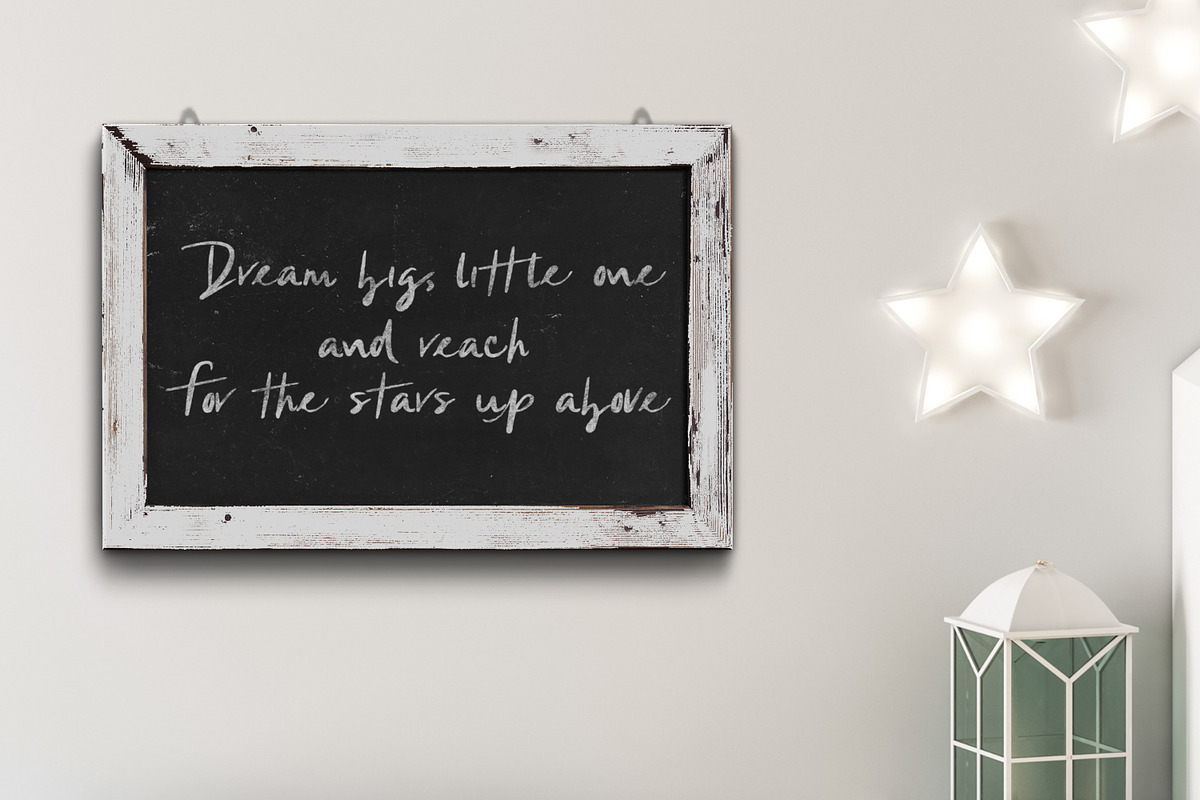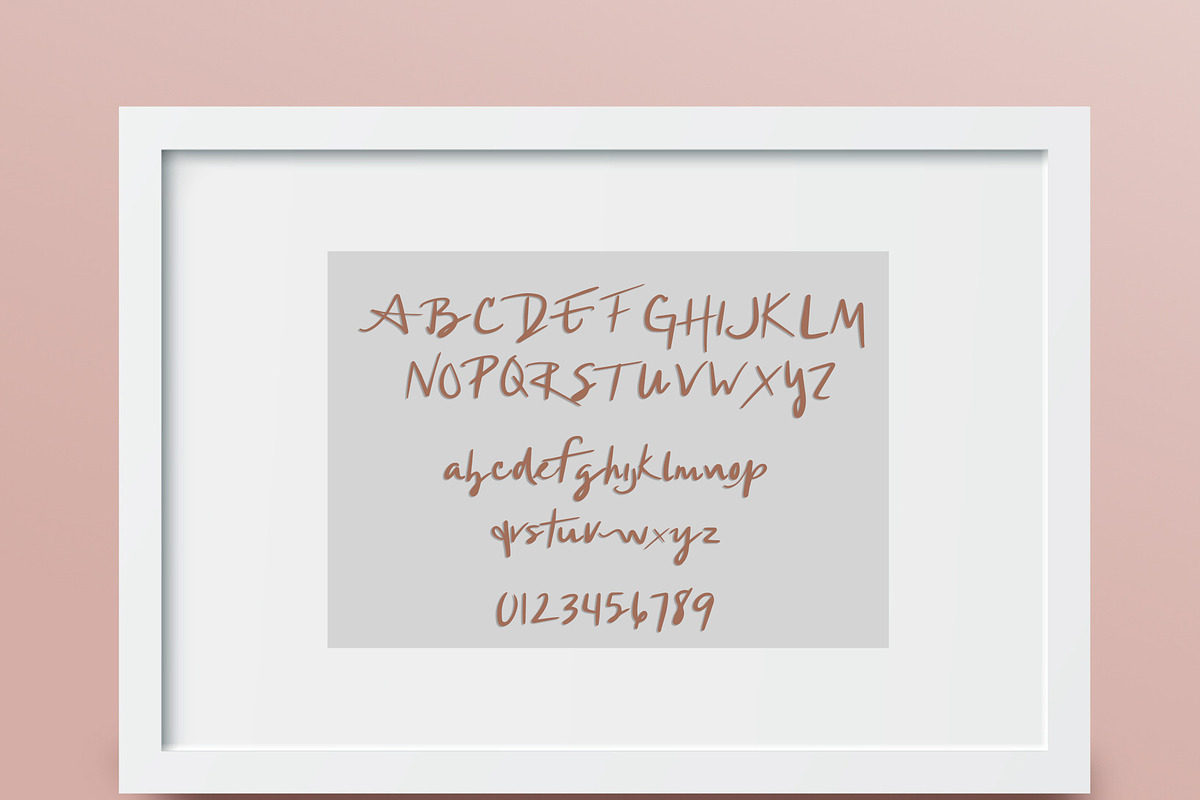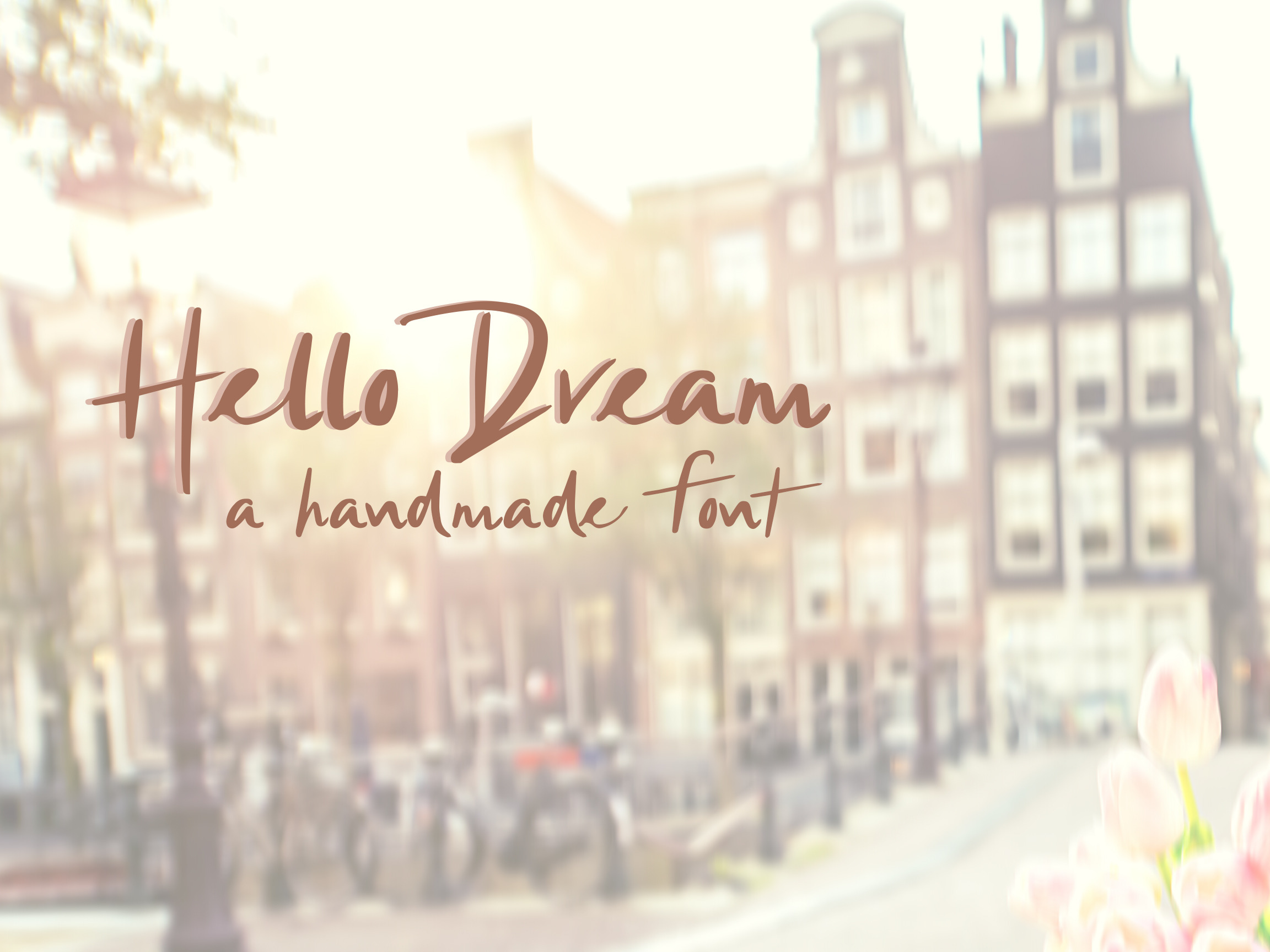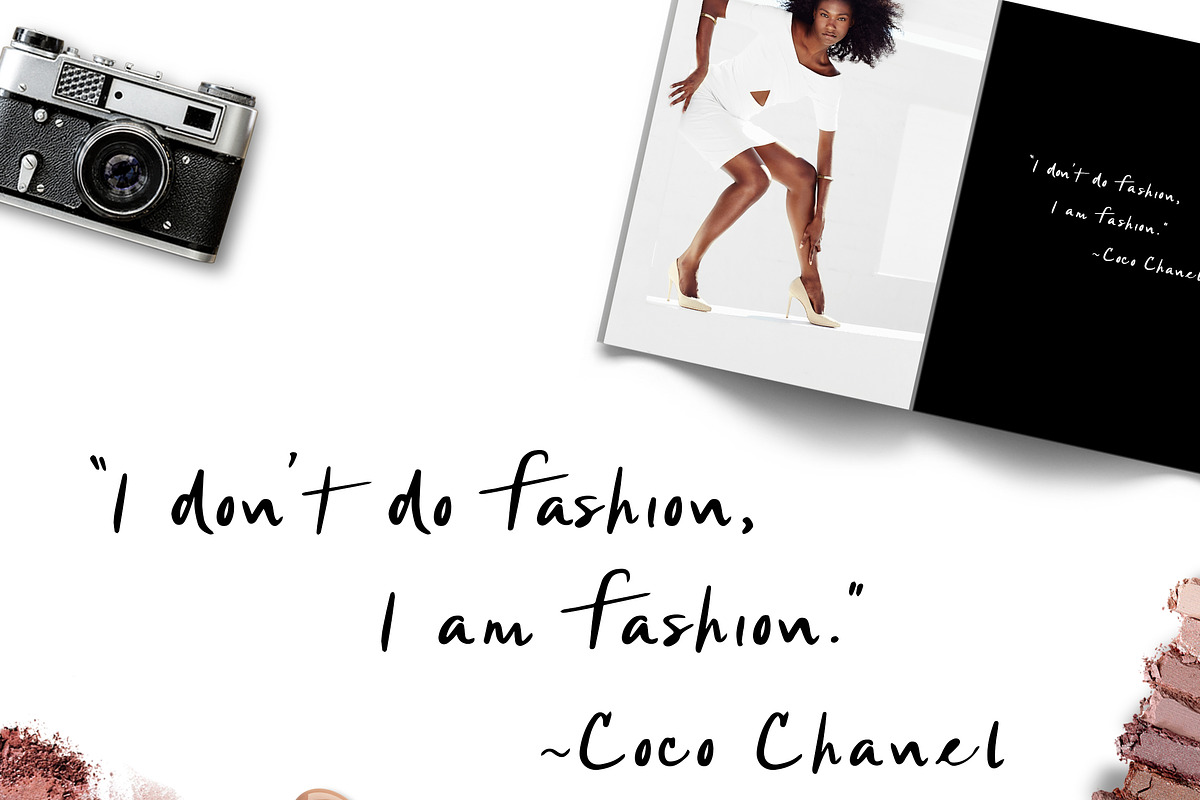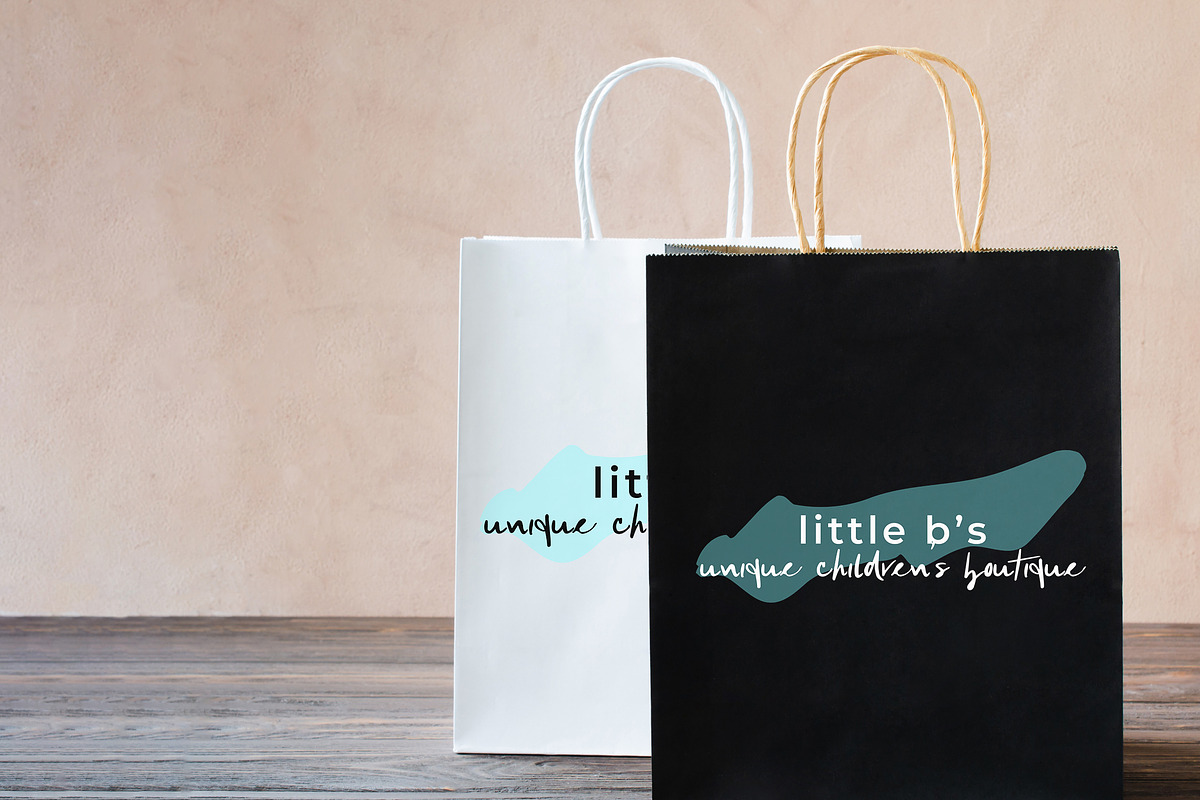
Hello Dream Handwritten Font
Introducing Hello Dream Handwritten Font Hello Dream is a casual handwritten font with a little bit of attitude. This handmade print font is perfect for your creative needs in your favorite programs. Create invitations, Save the Date cards, social media templates, and more.
Give your creative projects a little attitude with Hello Dream Handwritten Font.
- upper and lowercase standard characters
- numbers